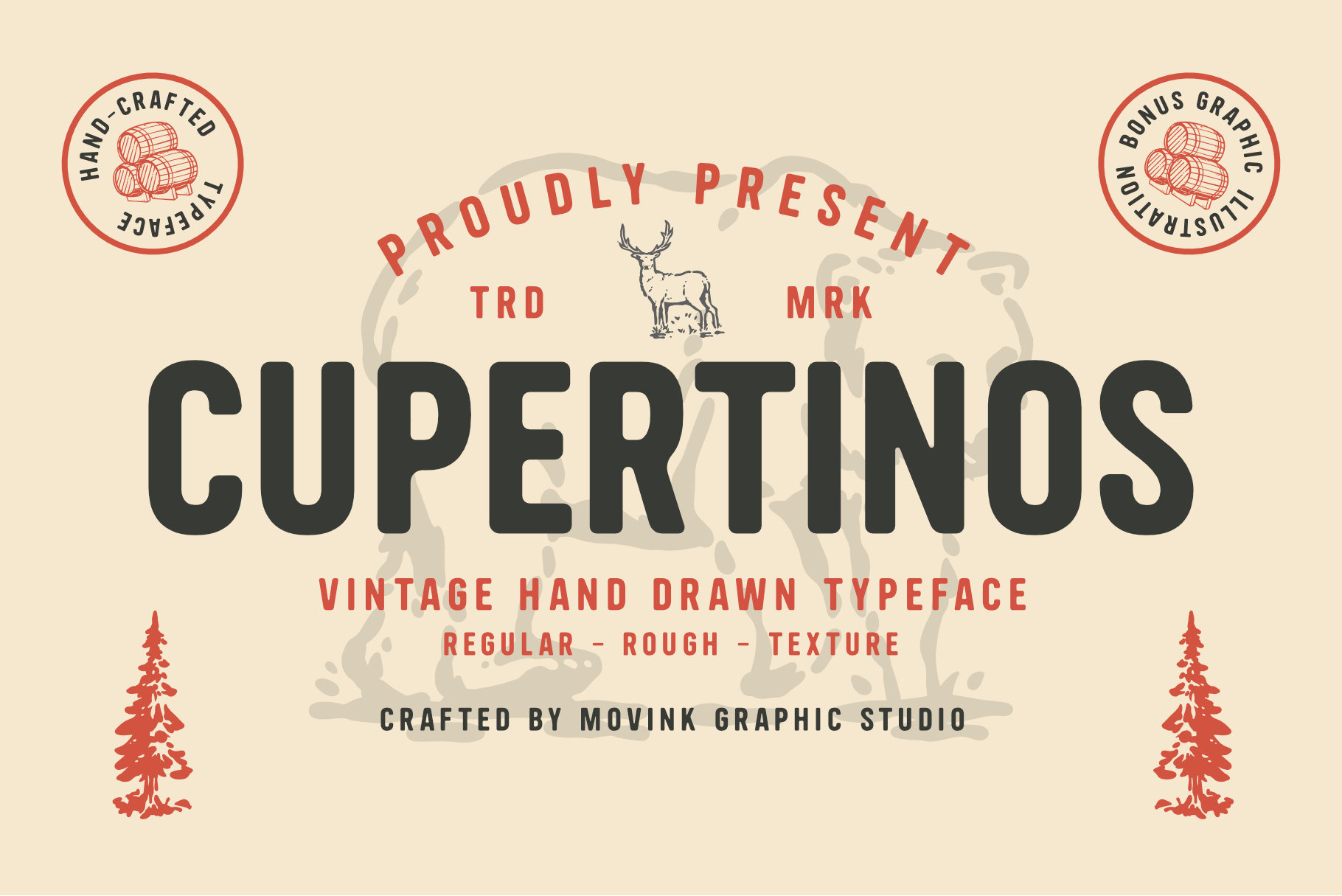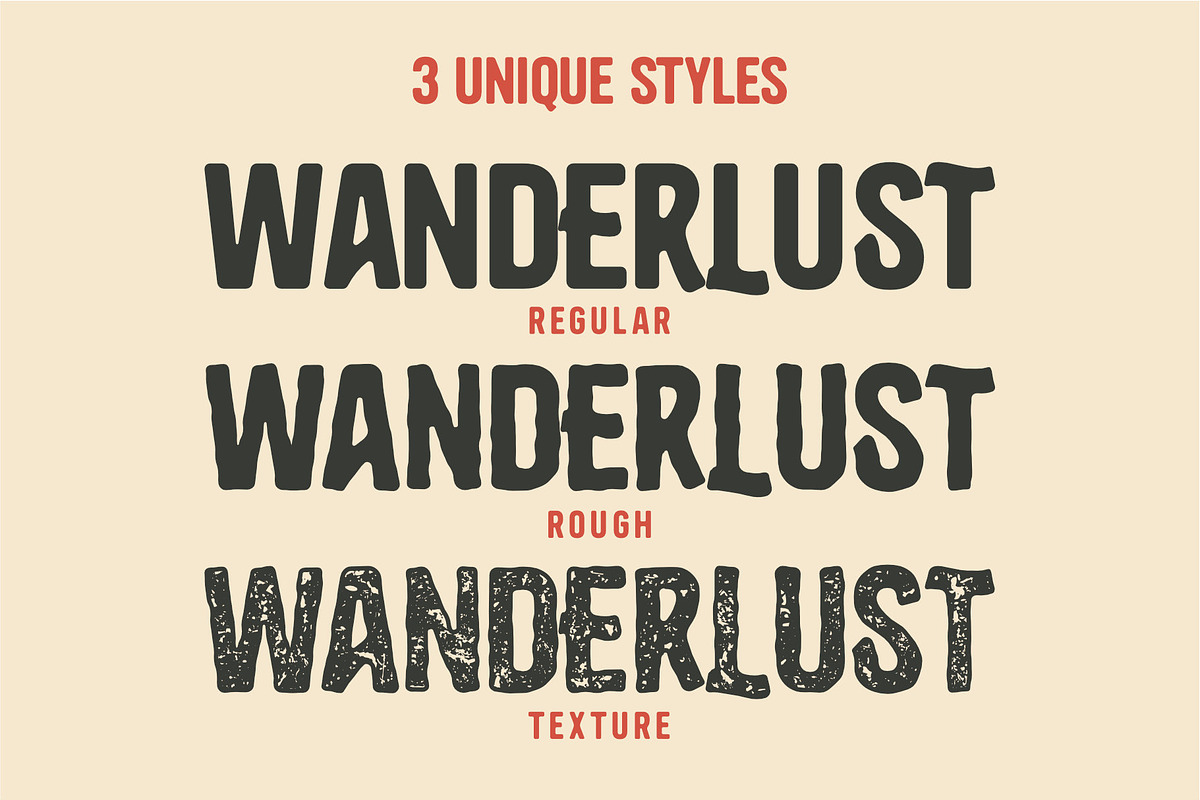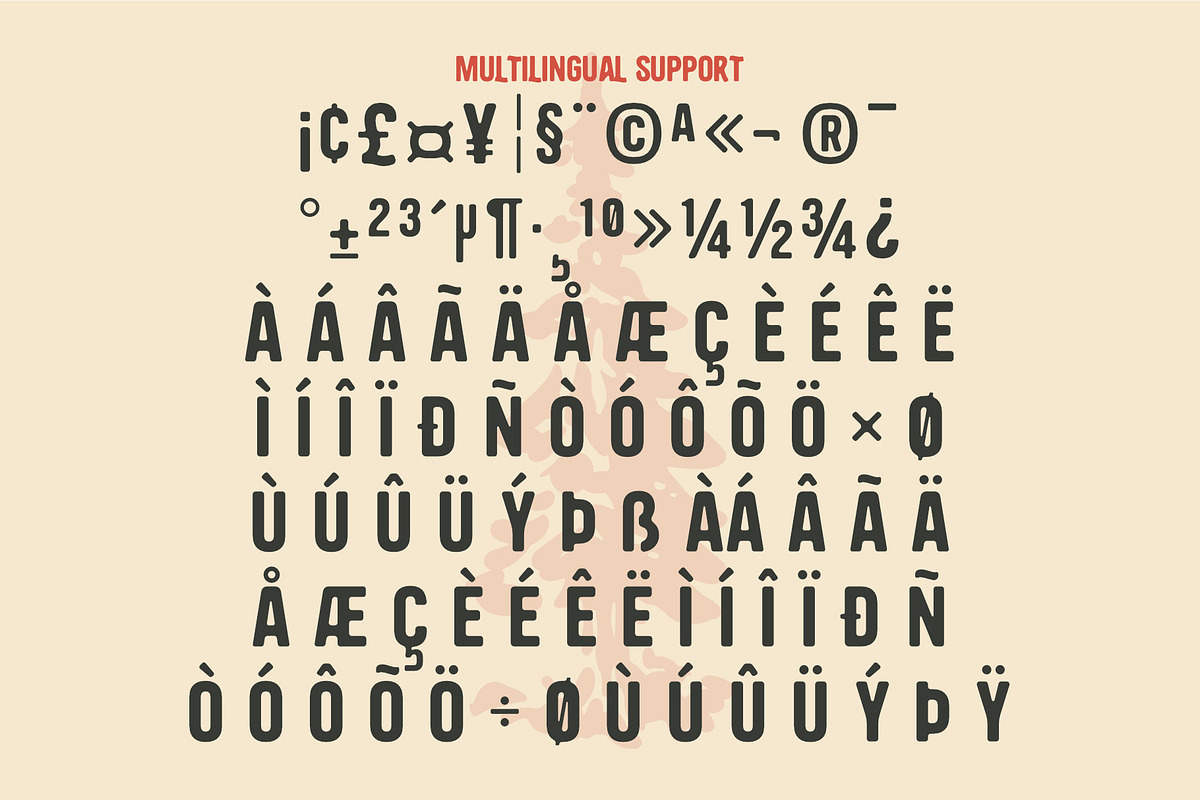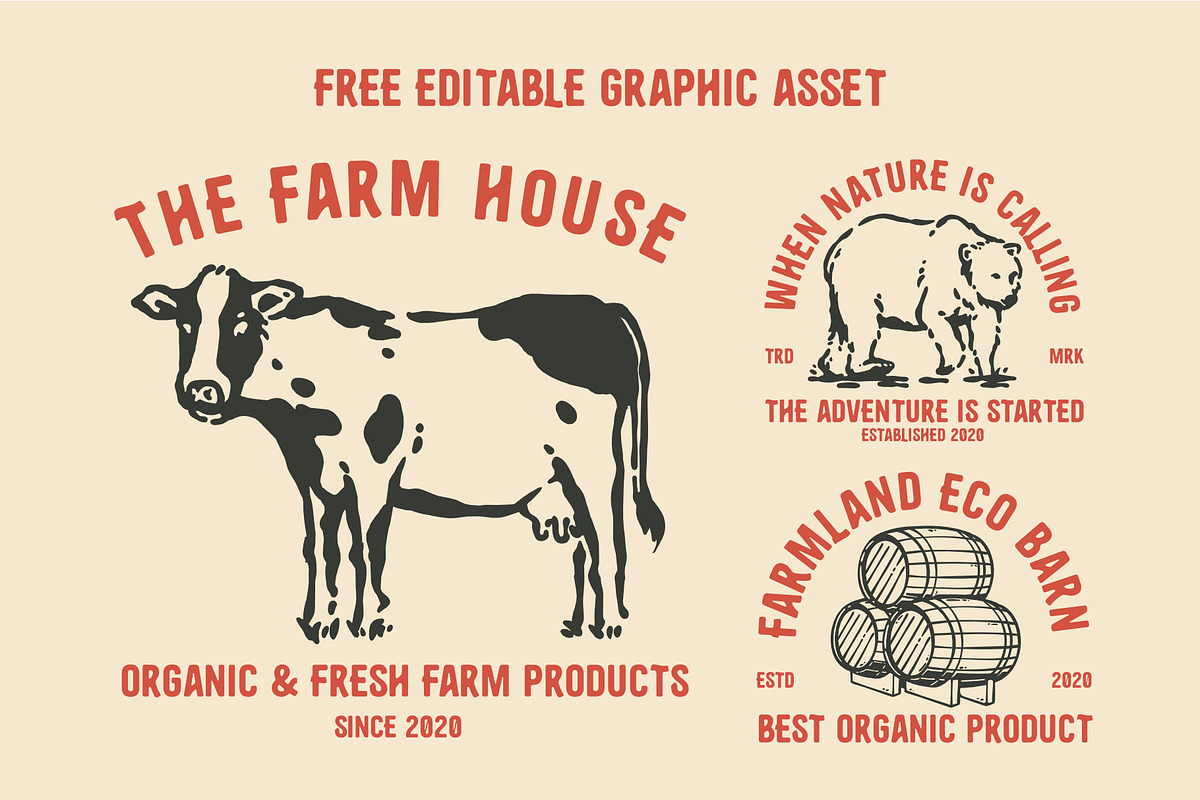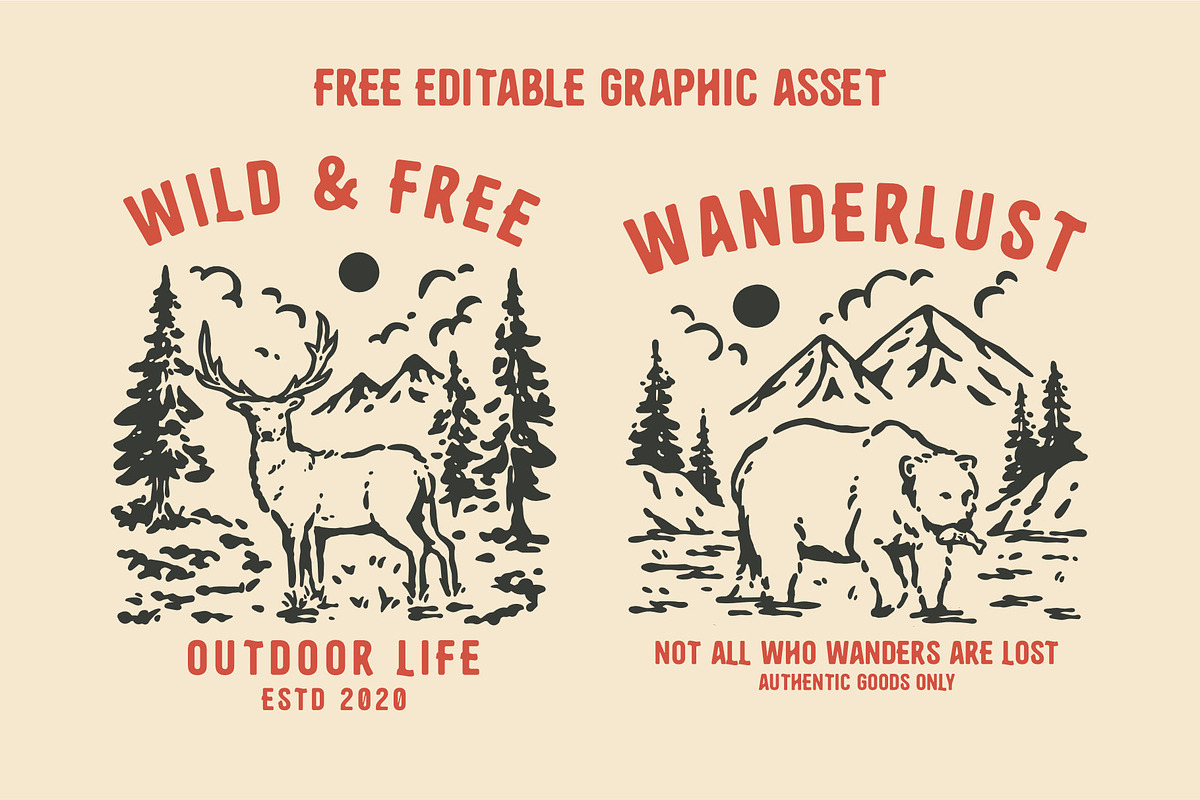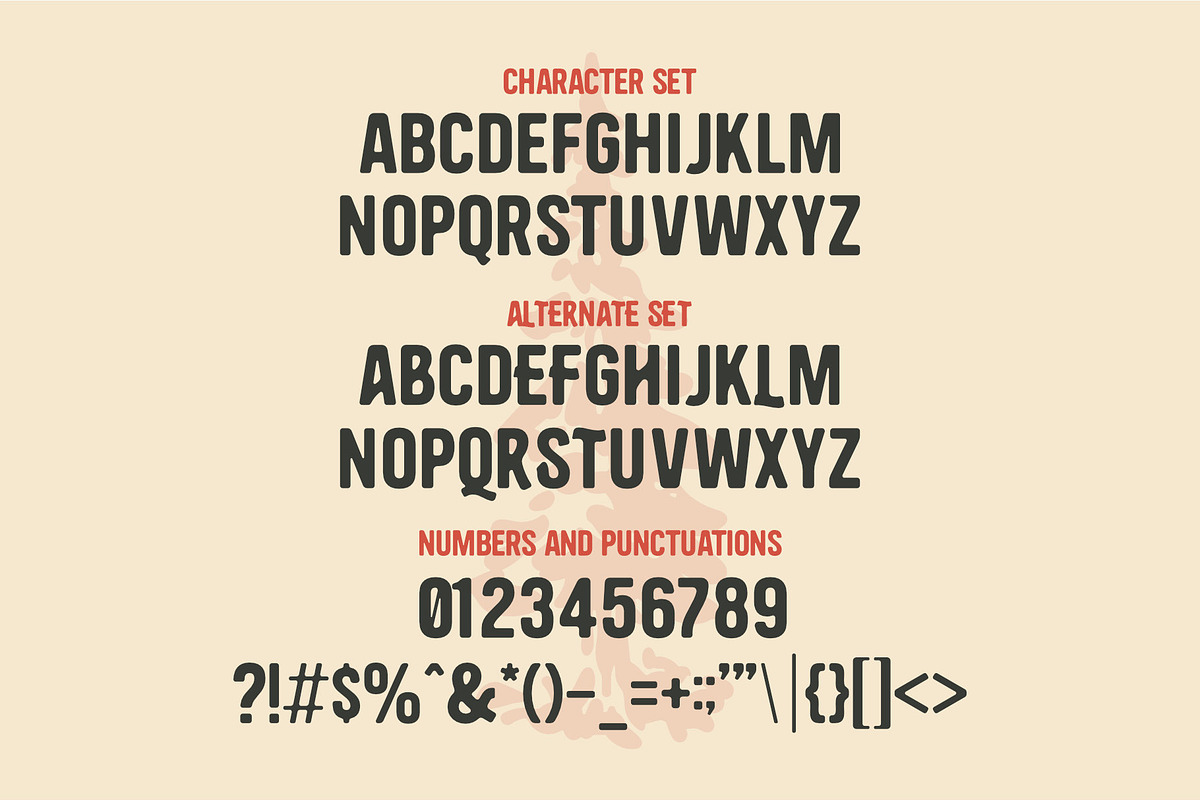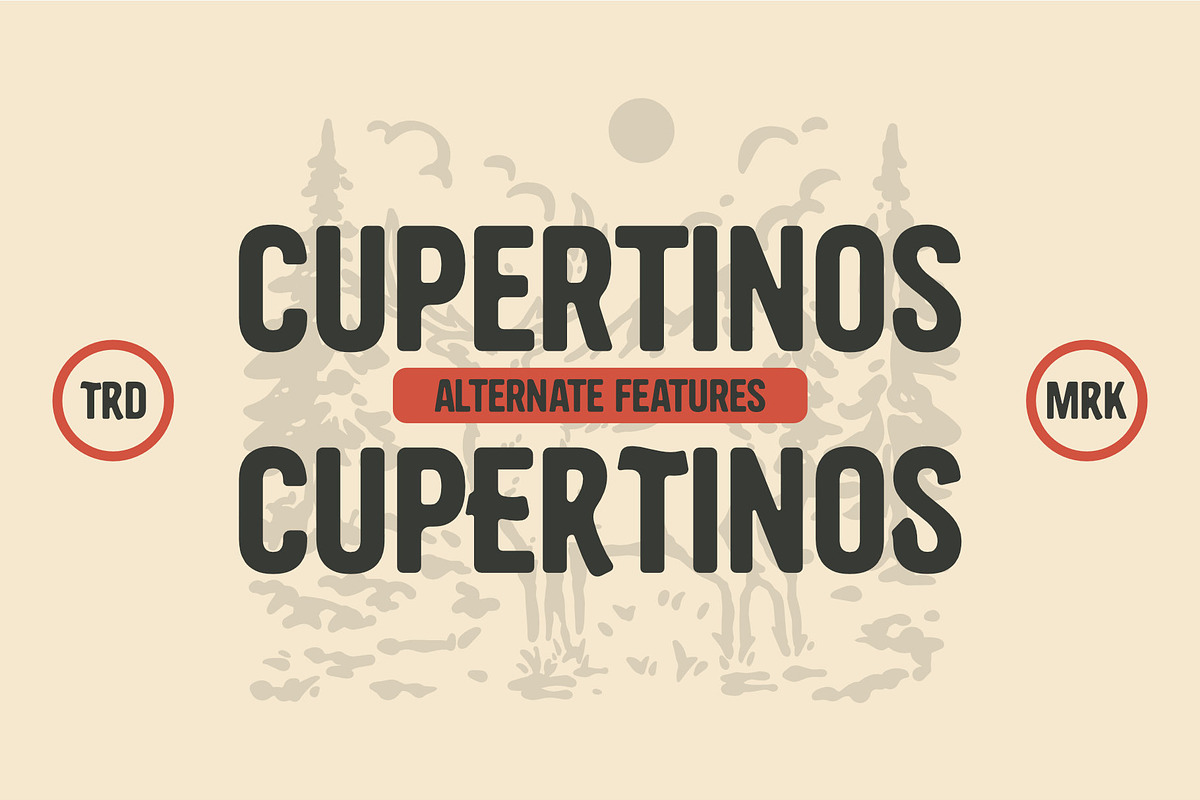
Cuppertinos – Vintage Hand Typeface
Bring authentic vintage character into your designs with Cuppertinos, a bold hand-drawn typeface crafted to capture the raw, imperfect beauty of classic screen-printed lettering. Designed with subtle irregularities and natural ink variation, Cuppertinos delivers that true vintage print feel — not artificial, not over-processed — just the kind of organic texture you’d expect from old-school craftsmanship.
Perfect for creators who want their work to feel timeless, rugged, and full of personality.
✨ What Makes Cuppertinos Special Hand-drawn letterforms with natural imperfections Built-in vintage texture (no overlays needed) Strong, bold structure for high readability Carefully crafted to mimic authentic screenprint results
🎯 Perfect For T-shirt & merchandise design Outdoor & adventure branding Vintage logo design Packaging & labels Poster & badge designs Coffee shops, breweries, barbershops branding